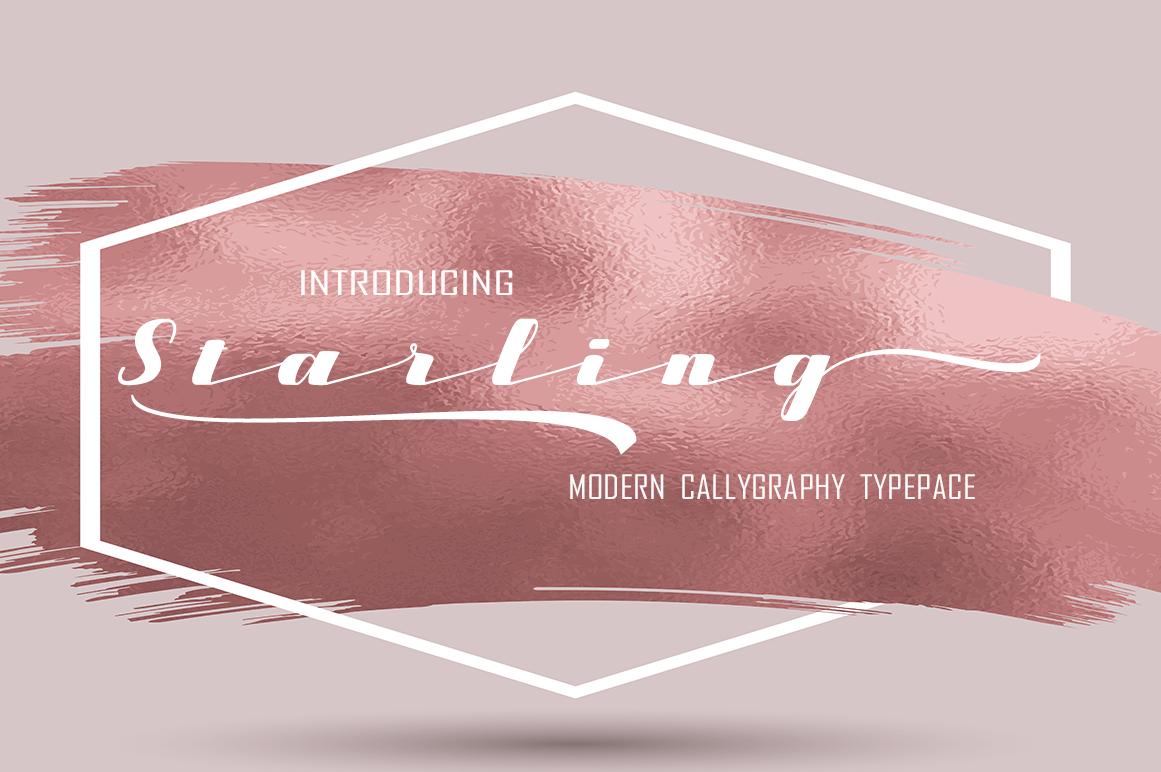
Starling Font Description
The Starling is a modern calligraphy font. It was handwritten and includes unique forms of calligraphy.
It can be used for various purposes such as headings, logos, wedding invitations, t-shirts, letterheads, signage, labels, news, posters, badges etc.